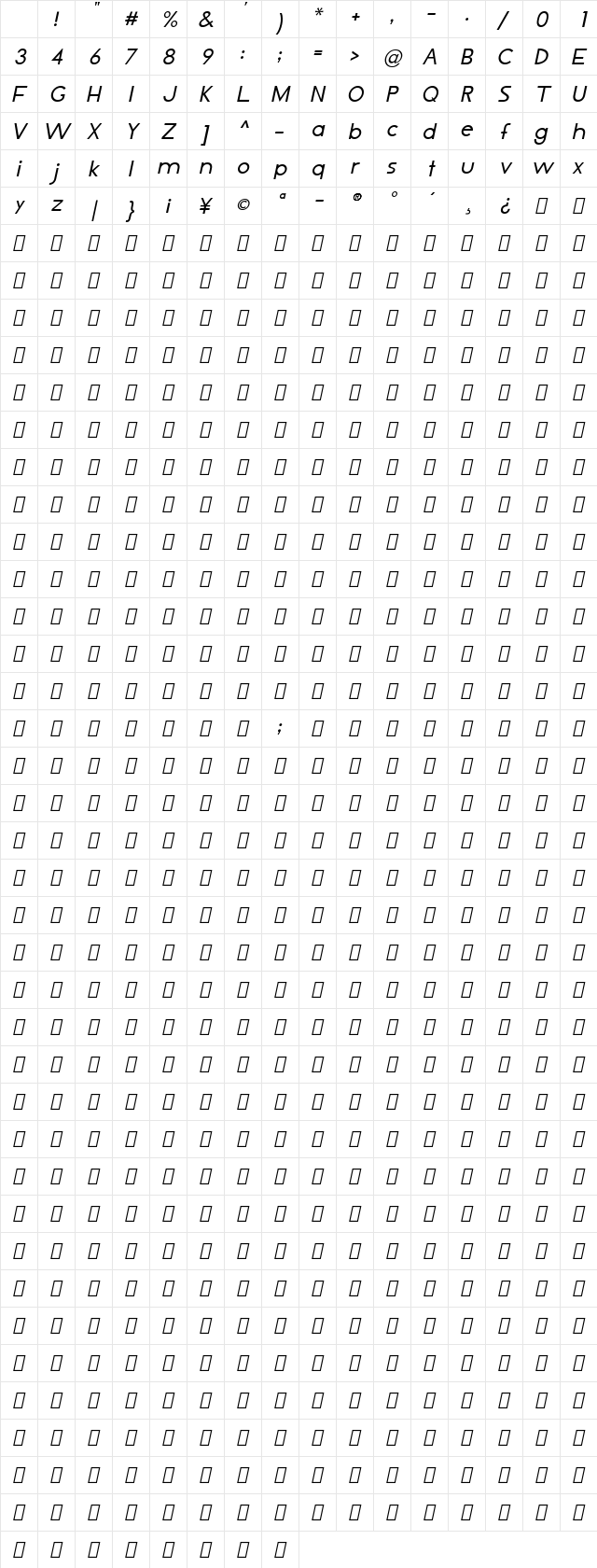
Complete LJ Design Studios IS Italic glyph index. Displaying only characters natively supported by LJ Design Studios IS Italic font.
LJ Design Studios IS is a composed and adaptable typeface that performs quietly and consistently across a wide range of design contexts. The slanted form adds forward momentum and visual energy.
Pro Tip: Use LJ Design Studios IS for emphasis, pull quotes, and subheadings where its slanted energy can add rhythm to the layout.